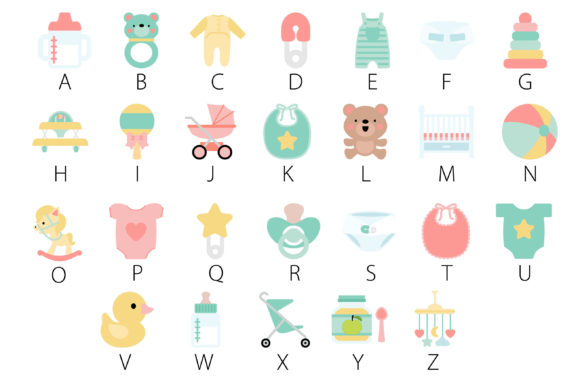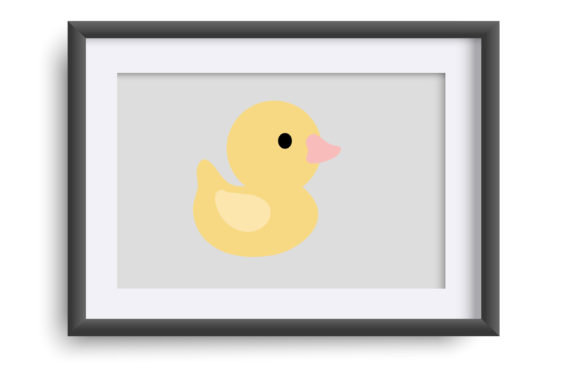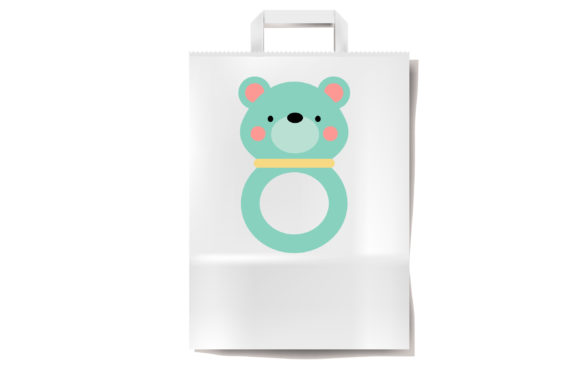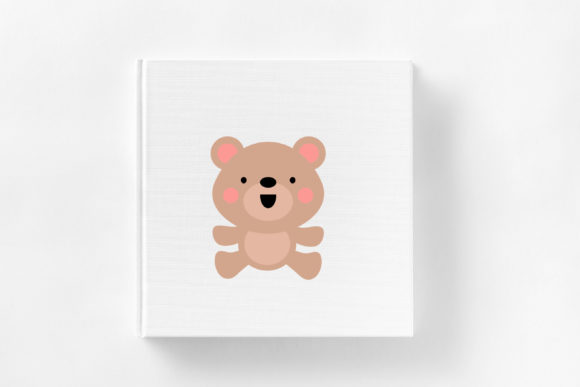
Introduction to Pipsqueaks Firsts Font
Pipsqueaks Firsts is a unique, interesting and quirky looking color font.
Add it confidently to your favorite creations and let yourself be amazed by the outcome generated Note.
Key Features of Pipsqueaks Firsts Font